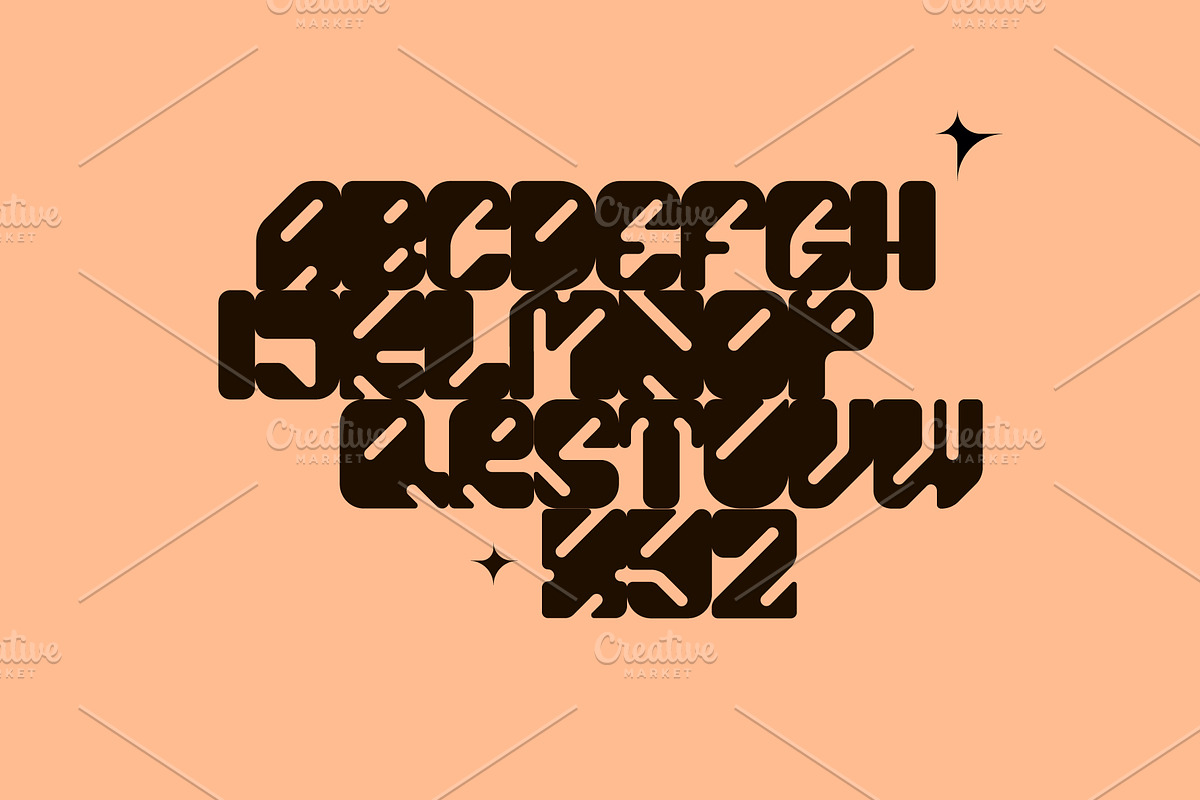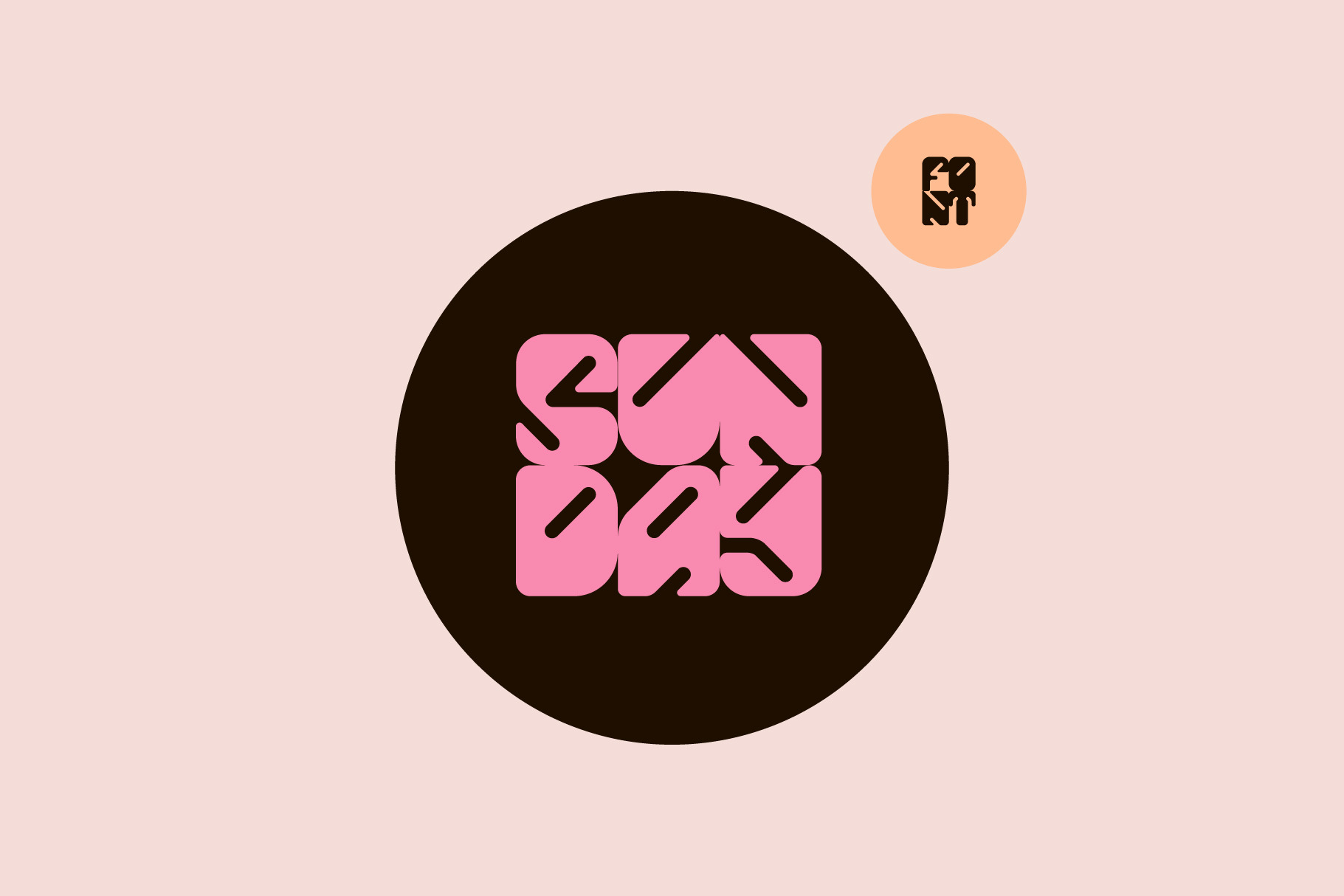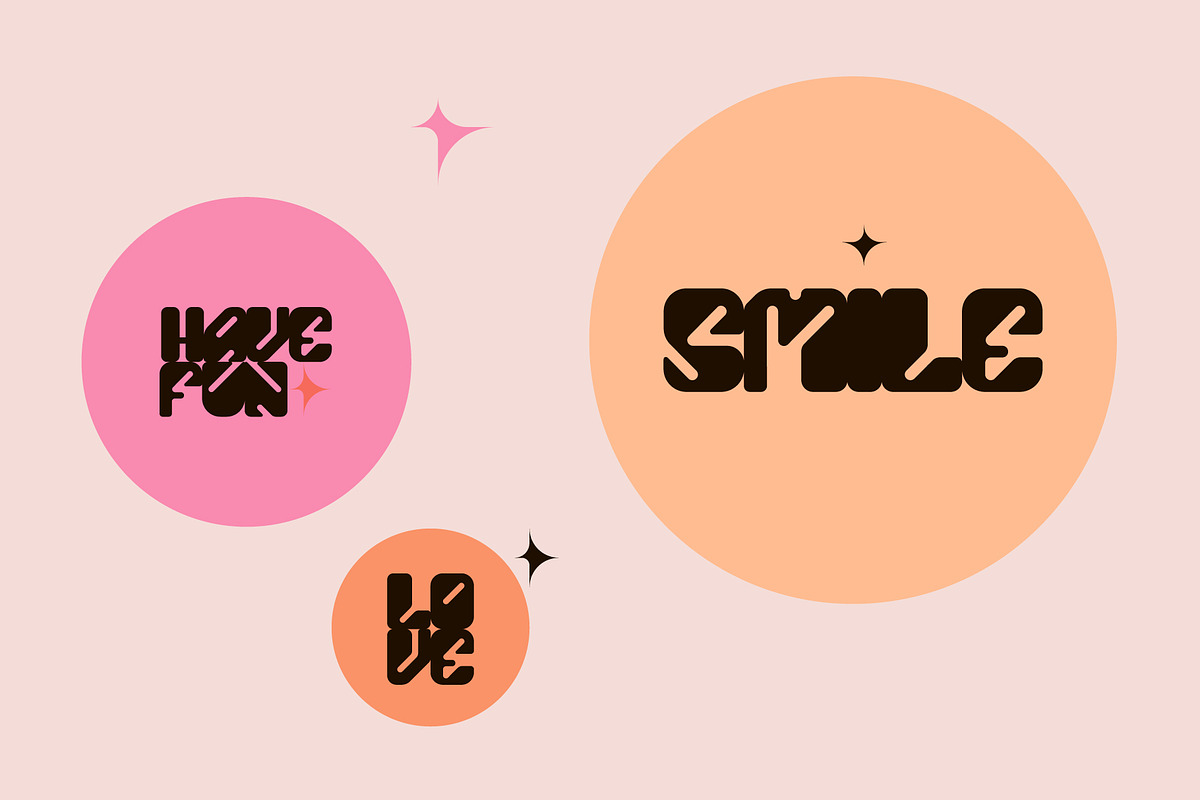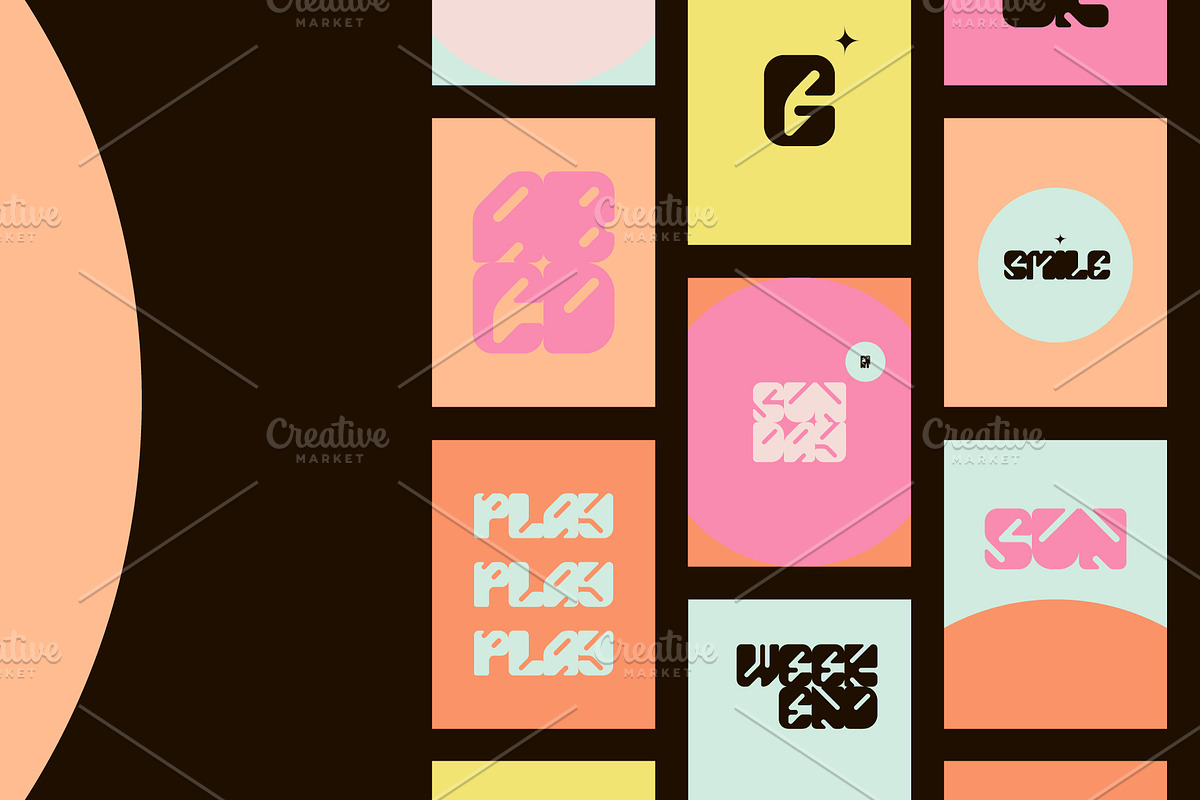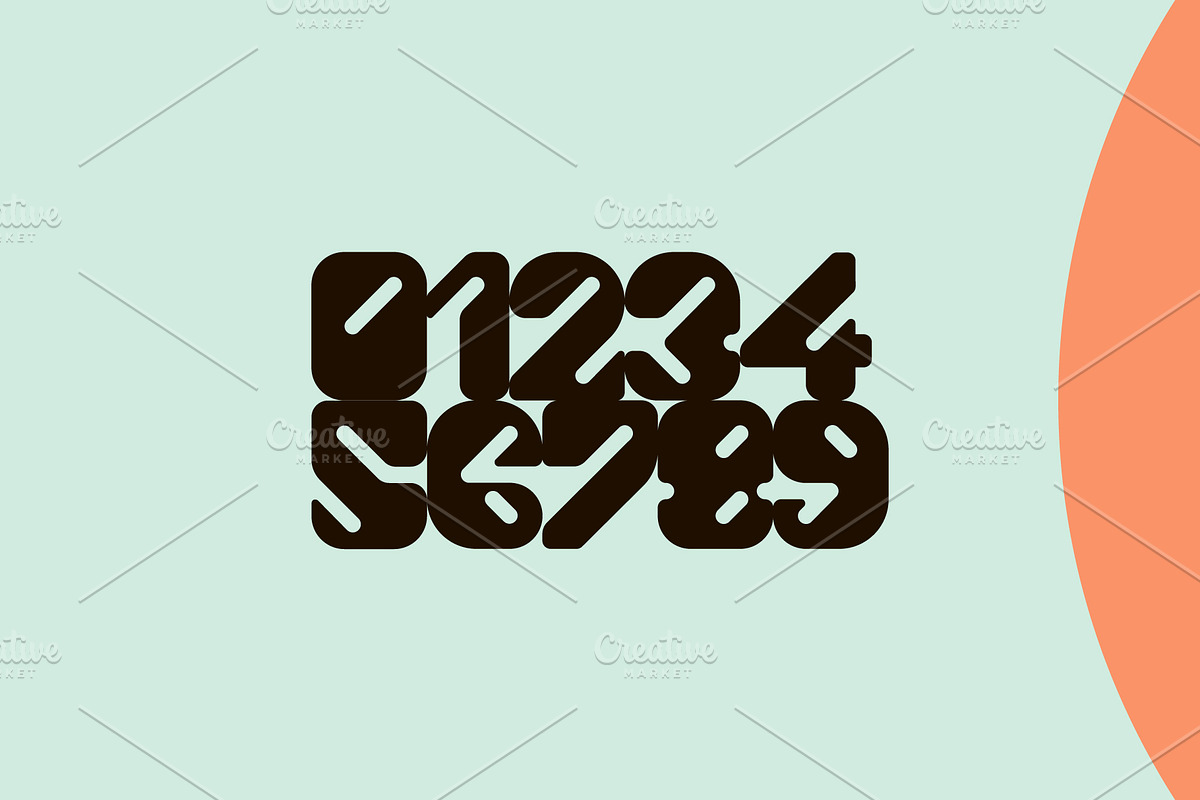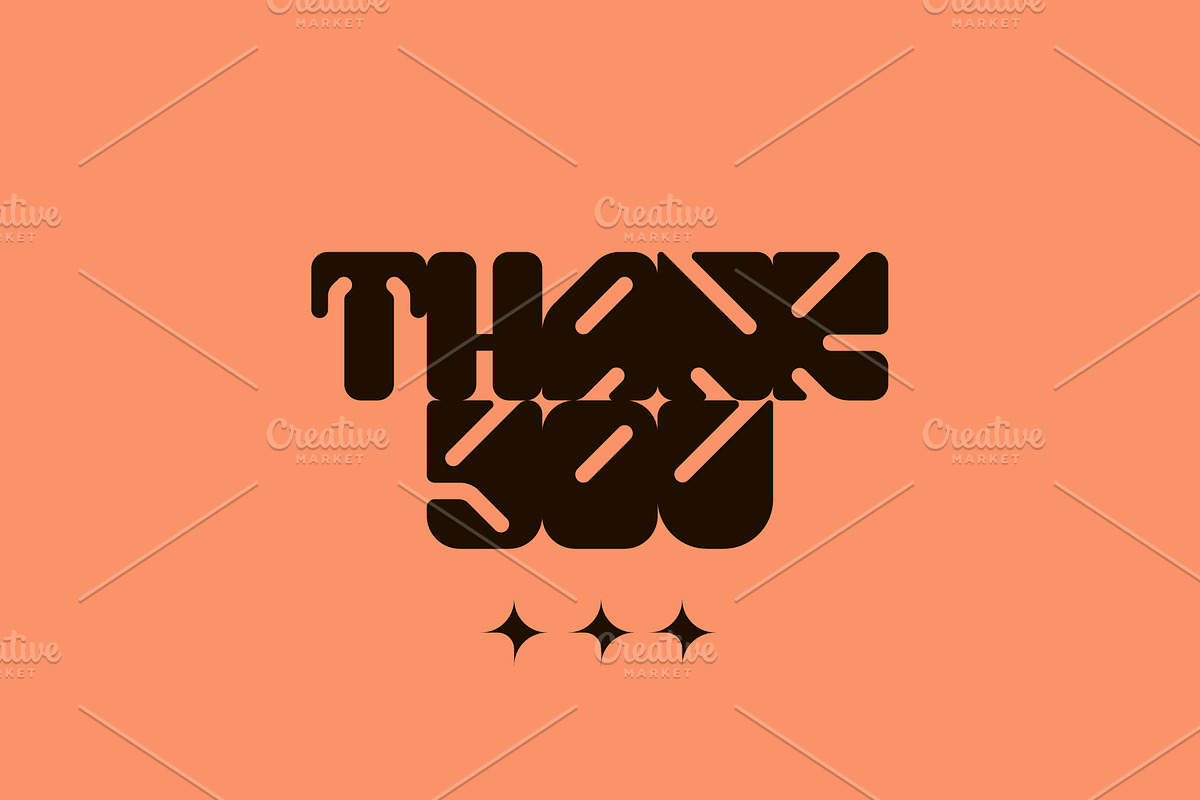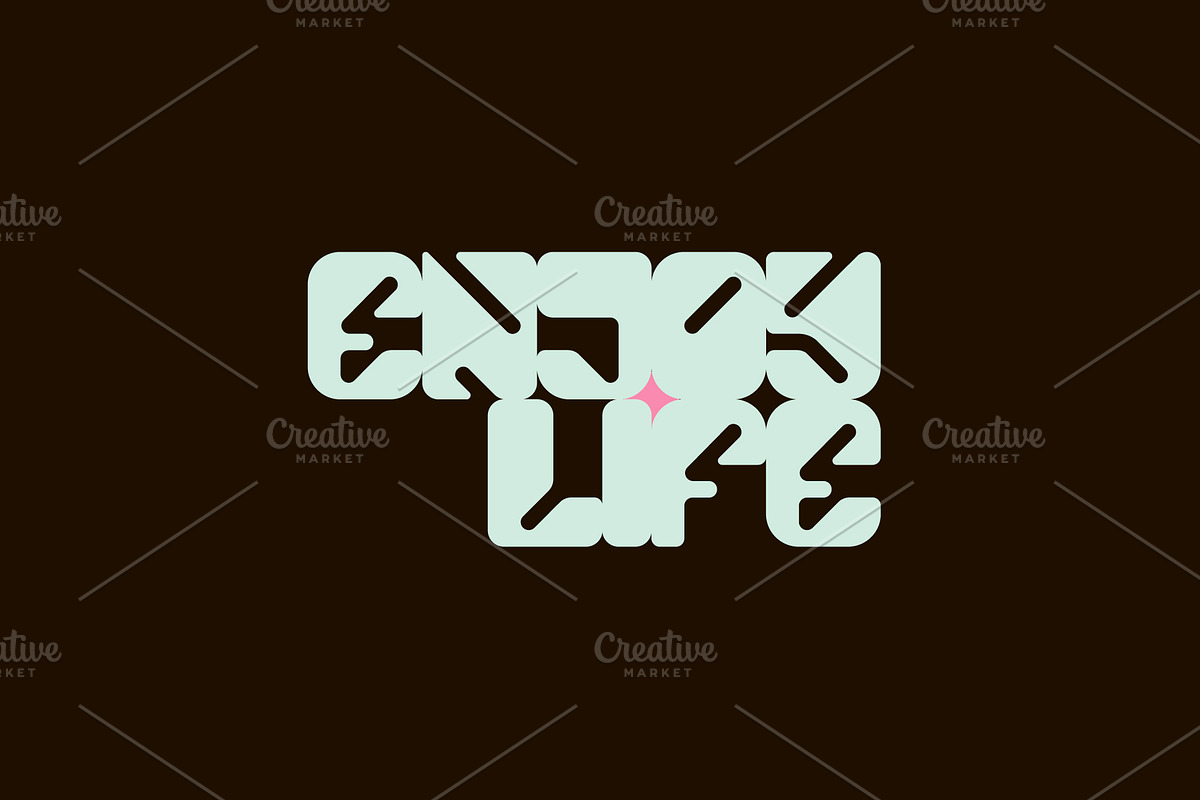
SUNDAY Font
Hi everyone! This is my new font Sunday. I really like him, so simple, bold and unusual. And these stars that turned out in the letter pattern. The font is suitable for creating wordmarks, logos, titles, taglines.
It is in 3 versions : Regular (in this version there are no spacing between letters and it works beautiful in logo and title), Space (with spacing between letters) and Italic.